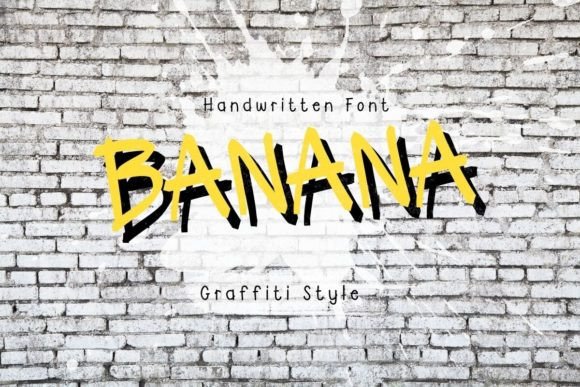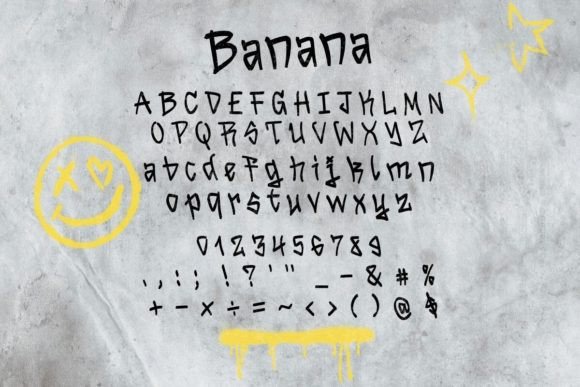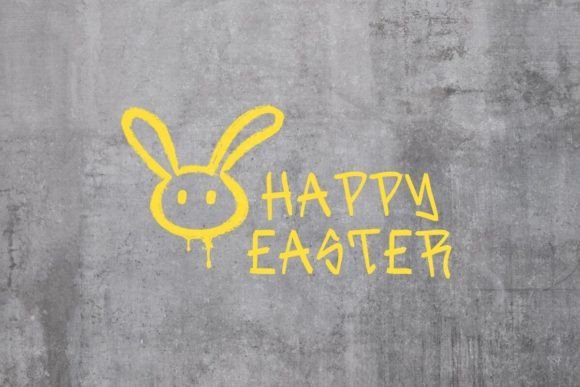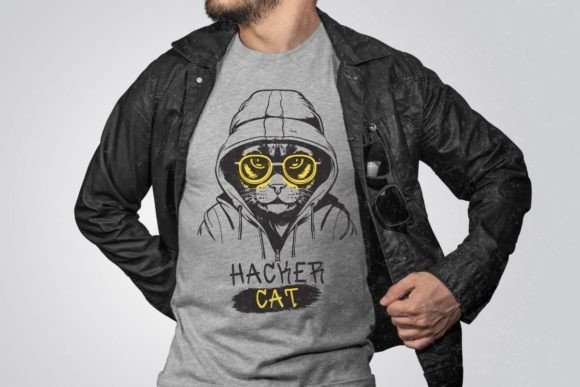
About the Banana Font
Get ready to be inspired by Banana Font, a fresh and dynamic typeface for modern creators. Introducing “Banana Font”, your passport to embodying urban dynamism through an innovative graffiti handwriting style. With “Banana”, your projects will be imbued with an electrifying gusto that radiates verve and audacity. It’s not just a font, it’s an exciting tool to turbocharge your social media impact, amplify your graphic art ventures, or navigate the limitless sea of creativity. Ideal for stirring graphics and posts on social media, making your graphic design work pop, creating eye-catching posters, flyers, and street art, enriching album covers and music promotions, and brandishing city-themed branding and marketing materials with a unique edge. Experience the aesthetic allure of the streets with “Banana”.
Banana Font Usage Examples
Banana Font Example